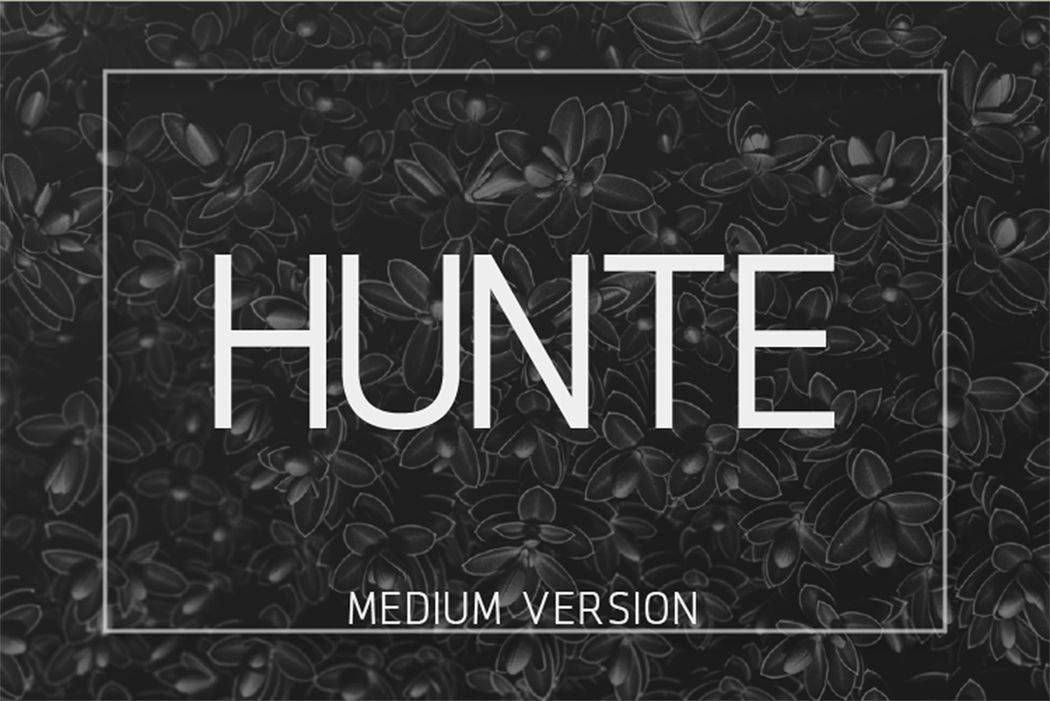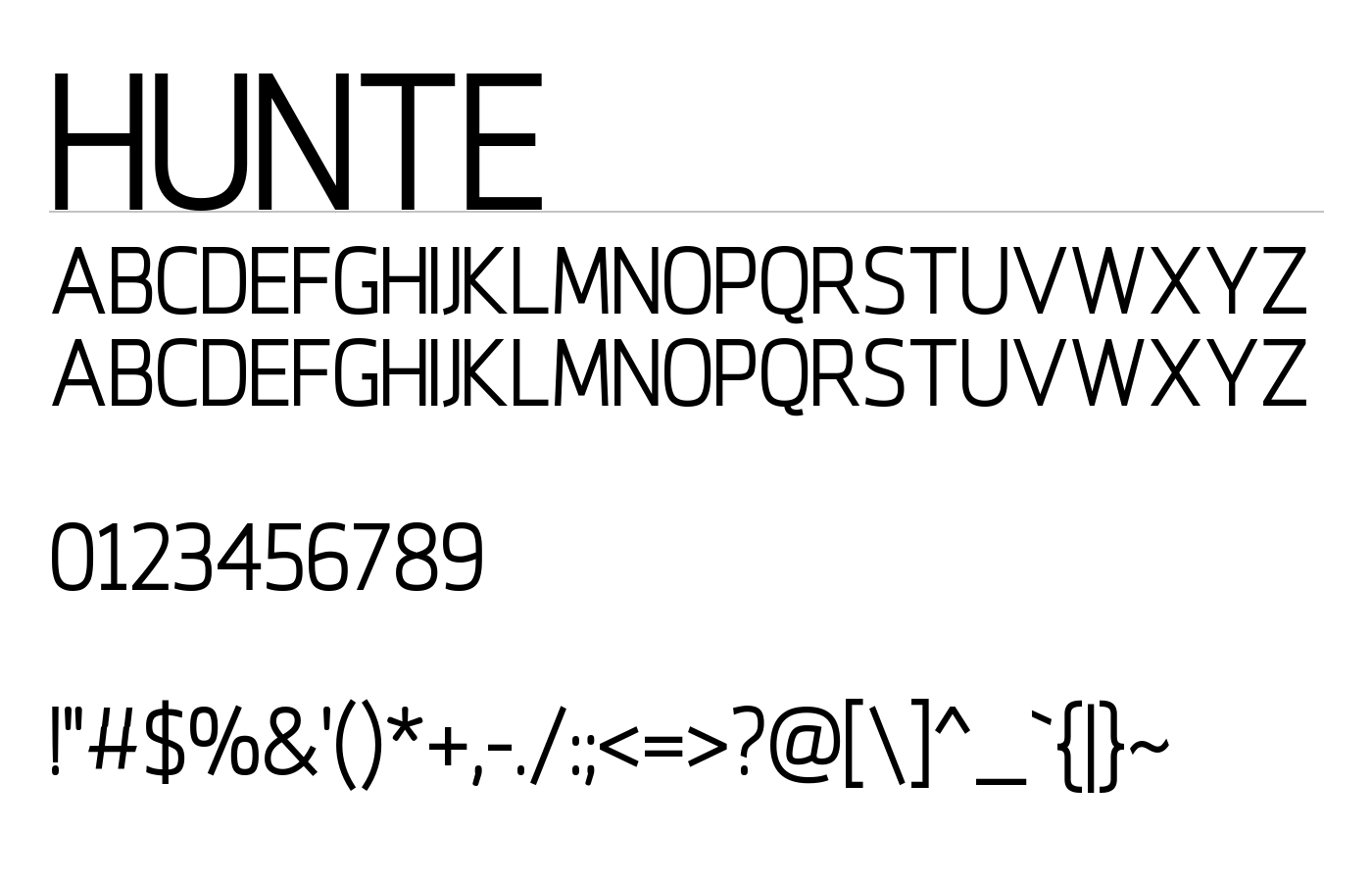
Hunte is a sleek, modern sans serif font characterized by its tall, narrow letterforms and clean, consistent strokes with low contrast. Its minimalistic design and slightly condensed width give it a refined, professional look, making it ideal for contemporary branding, editorial headlines, and digital interfaces where clarity and sophistication are key. This font works well in projects that require a stylish yet straightforward presence, balancing elegance with practicality.
Hunte Font
About Hunte Font
| Font family | Hunte Font |